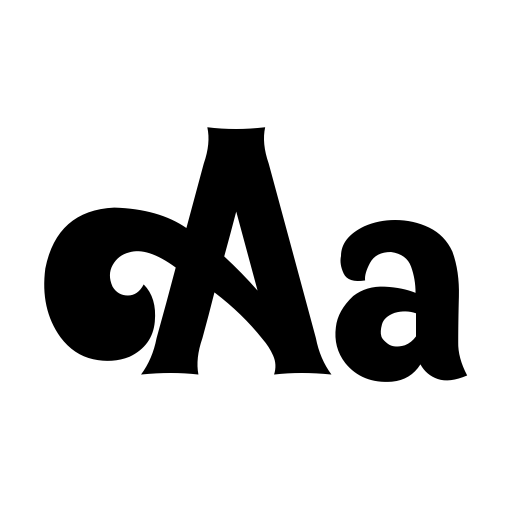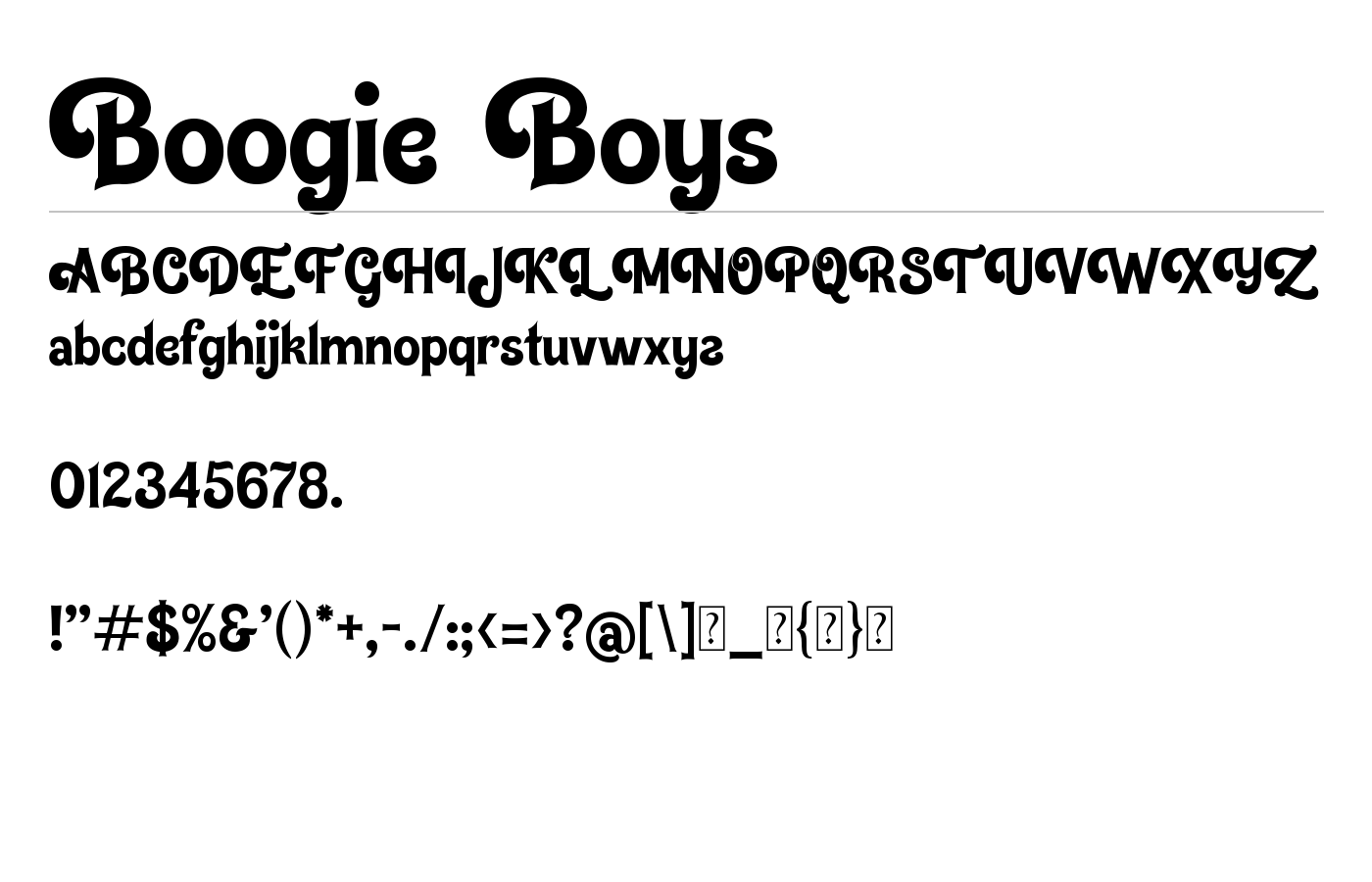
Boogie Boys is a bold, playful serif font with a retro vibe, featuring thick strokes and distinctive, decorative serifs that give it a lively, vintage character. Its unique letterforms, with prominent curves and swirls, make it perfect for eye-catching logos, posters, and branding that needs a fun, nostalgic flair. This font works well in display settings where personality and charm are key, adding a joyful and memorable touch to fashion, entertainment, or creative projects.
Boogie Boys Font